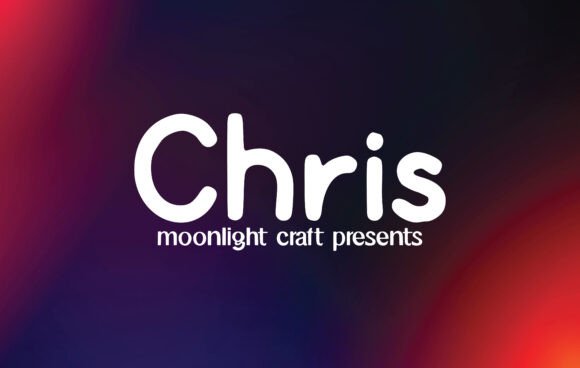
Introducing Chris Font: Elevate Your Creative Projects with a Lovely Handwritten Style
In the world of typography, fonts play a crucial role in conveying messages, expressing emotions, and creating a lasting impression. Among the numerous fonts available, Chris Font stands out as a lovely and beautiful handwritten font that has the potential to take your creative ideas to the highest level. In this article, we’ll explore the features, benefits, and uses of Chris Font, and why it’s the best choice for creating eye-catching logos, branding, and quotes.
What Makes Chris Font Special?
Chris Font is a unique and elegant handwritten font that boasts a distinctive character. Its lovely and beautiful design makes it perfect for a wide range of creative projects, from logos and branding to quotes and social media graphics. The font’s handcrafted nature gives it a personal touch, making it an excellent choice for those looking to add a human element to their designs.
- Unique and Elegant Design: Chris Font features a one-of-a-kind design that sets it apart from other fonts.
- Handwritten Style: The font’s handwritten style gives it a personal and human touch.
- Versatile: Chris Font can be used for various creative projects, including logos, branding, quotes, and more.
The Benefits of Using Chris Font
Chris Font offers numerous benefits that make it an excellent choice for designers, artists, and creatives. Some of the advantages of using Chris Font include:
- Enhanced Creativity: Chris Font’s unique design and handwritten style can inspire creativity and take your projects to the next level.
- Professional Look: The font’s elegant design gives your projects a professional and polished look.
- Easy to Read: Chris Font is clear and easy to read, making it perfect for quotes, captions, and other text-based content.
- Customizable: The font can be easily customized to fit your project’s specific needs.
How to Use Chris Font in Your Creative Projects
Chris Font is a versatile font that can be used in a variety of creative projects. Here are some ideas on how to use Chris Font:
- Logos and Branding: Use Chris Font to create eye-catching logos and branding materials that stand out.
- Quotes and Social Media Graphics: The font’s elegant design makes it perfect for creating inspiring quotes and social media graphics.
- Posters and Flyers: Chris Font can be used to create stunning posters and flyers that grab attention.
- Web Design: The font can be used in web design to add a personal touch to your website’s typography.
Tips for Getting the Most Out of Chris Font
To get the most out of Chris Font, here are some tips to keep in mind:
- Experiment with Different Sizes: Chris Font looks great in various sizes, so experiment to find the perfect size for your project.
- Pair with Other Fonts: The font pairs well with other fonts, so try combining it with other typography to create a unique look.
- Use it Consistently: Use Chris Font consistently throughout your project to create a cohesive look.
In conclusion, Chris Font is a lovely and beautiful handwritten font that has the potential to elevate your creative projects to the highest level. Its unique design, elegant style, and versatility make it an excellent choice for creating eye-catching logos, branding, and quotes. With its numerous benefits and uses, Chris Font is a valuable addition to any designer’s toolkit.